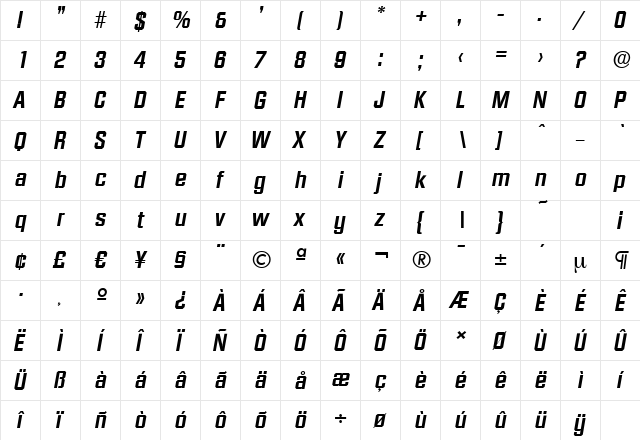
DiamanteSerial BoldItalic
Design Context for DiamanteSerial Typeface
DiamanteSerial takes a measured approach to typography — its balanced proportions and neutral character make it a reliable workhorse for both digital and print work. The dynamic lean of this cut emphasises speed and emphasis in any layout. Its bold stroke weight gives it real presence on the page.
Pro Tip: Use DiamanteSerial for emphasis, pull quotes, and subheadings where its slanted energy can add rhythm to the layout.